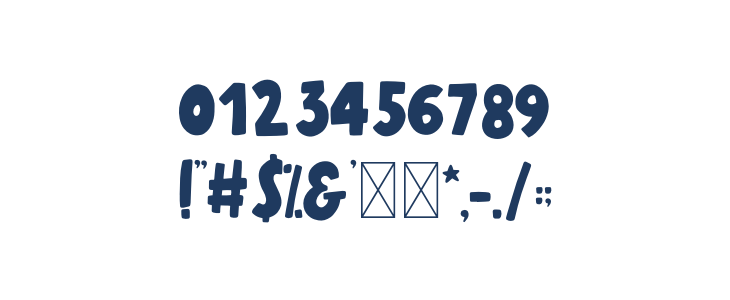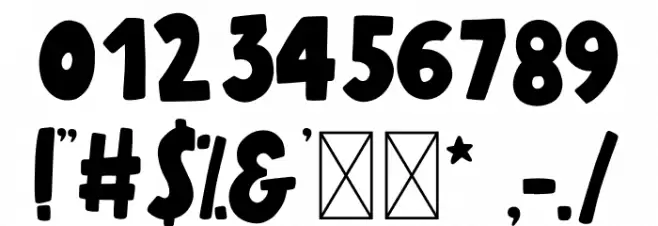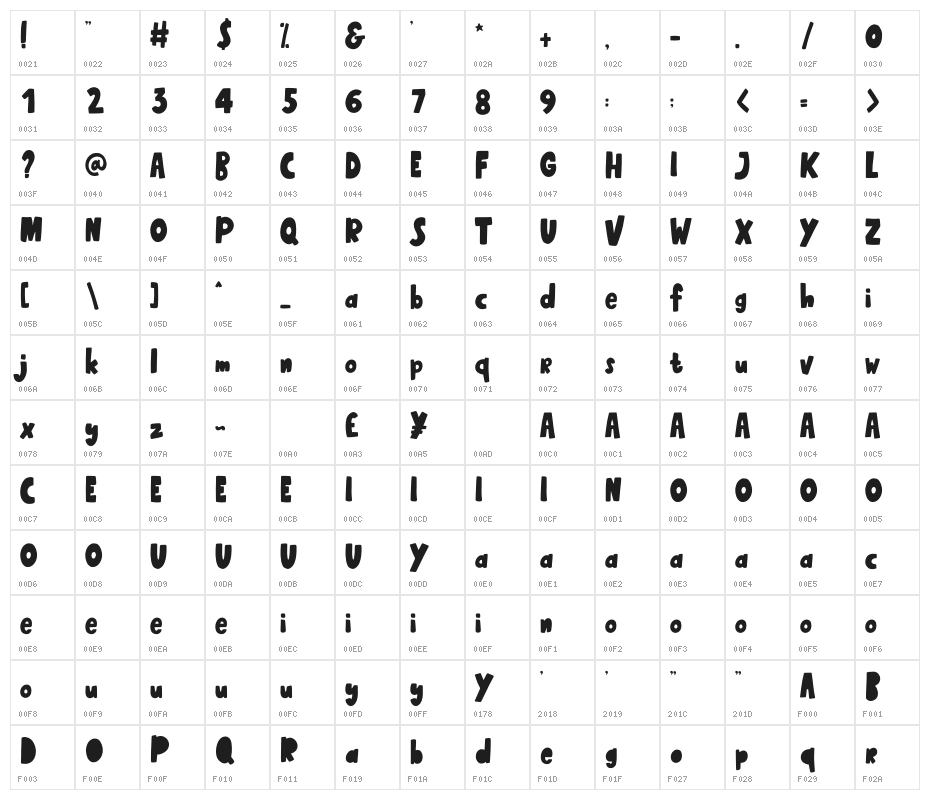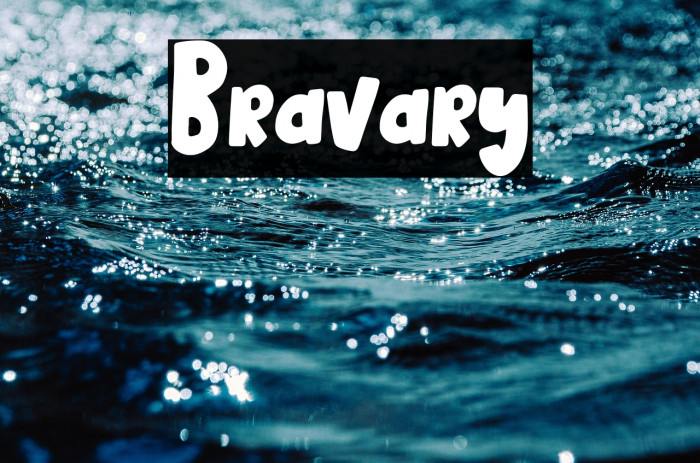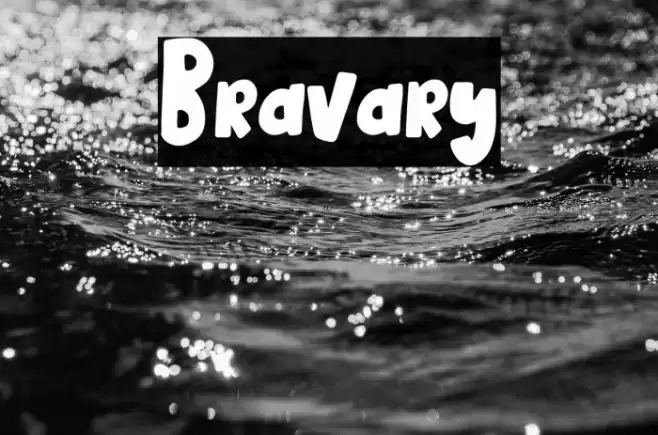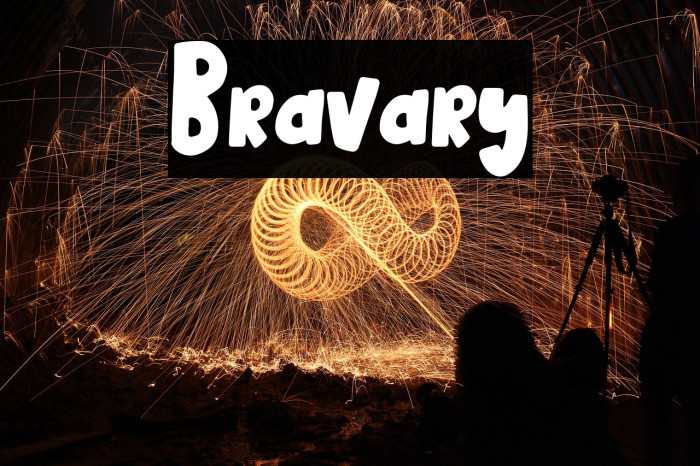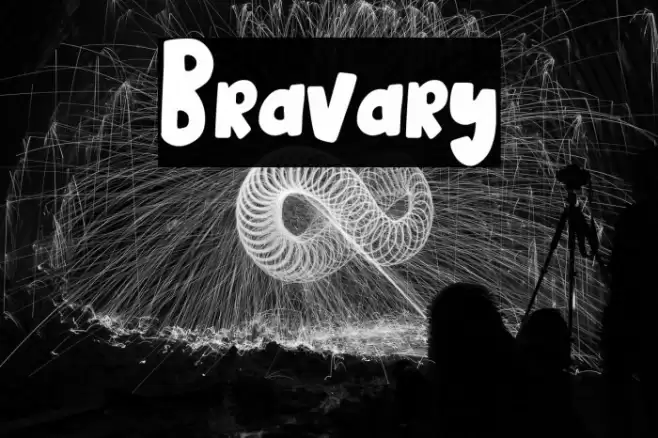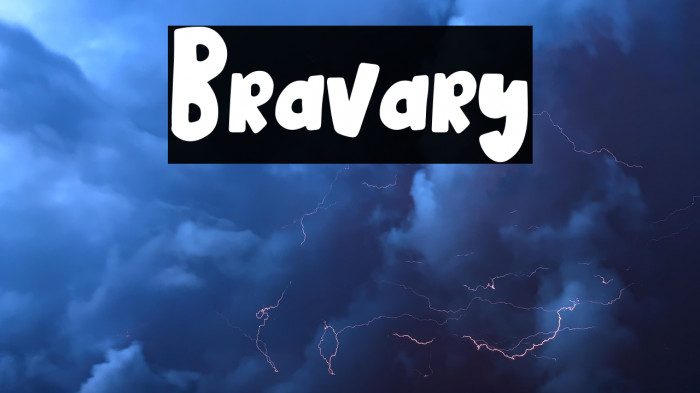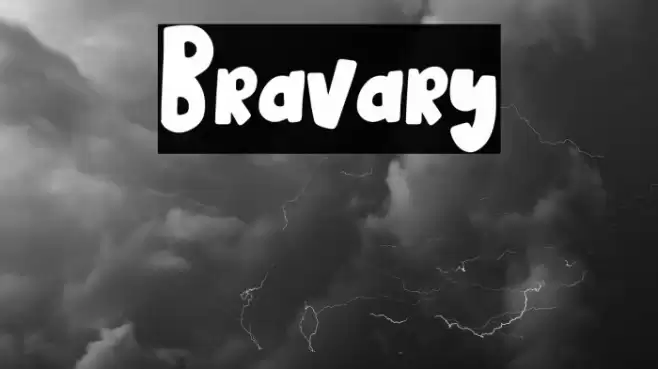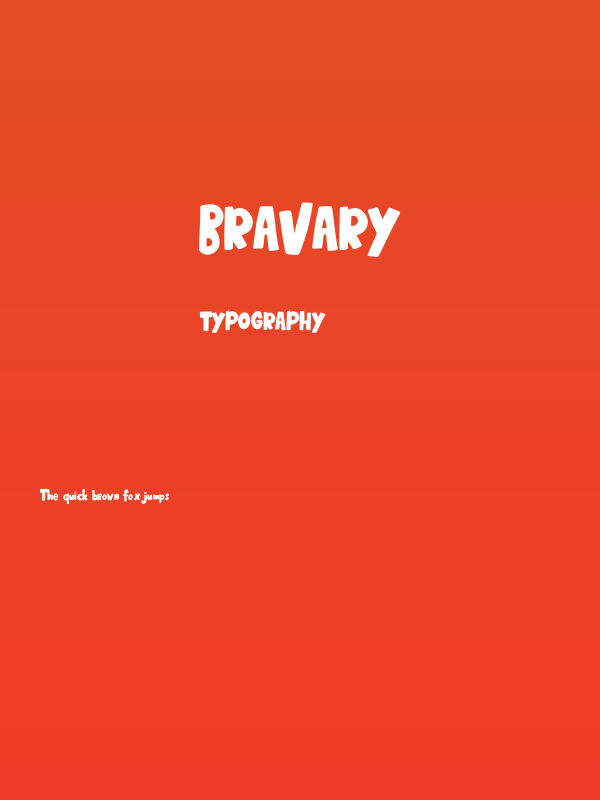
Bravary Font
Bravary Description
This font features a bold and playful style with thick, rounded characters that convey a sense of fun and approachability. The uppercase and lowercase letters maintain a consistent weight, creating a harmonious look across the alphabet. The numbers and special characters follow the same design principles, ensuring uniformity throughout. The exaggerated curves and slightly irregular shapes give it a hand-drawn appearance, making it ideal for informal and creative projects. Its boldness ensures high visibility, making it suitable for eye-catching designs.
| Overall Style | Playful, Hand-drawn |
| Proposed Projects | Ideal for children's books, playful branding, posters, and creative social media graphics. |